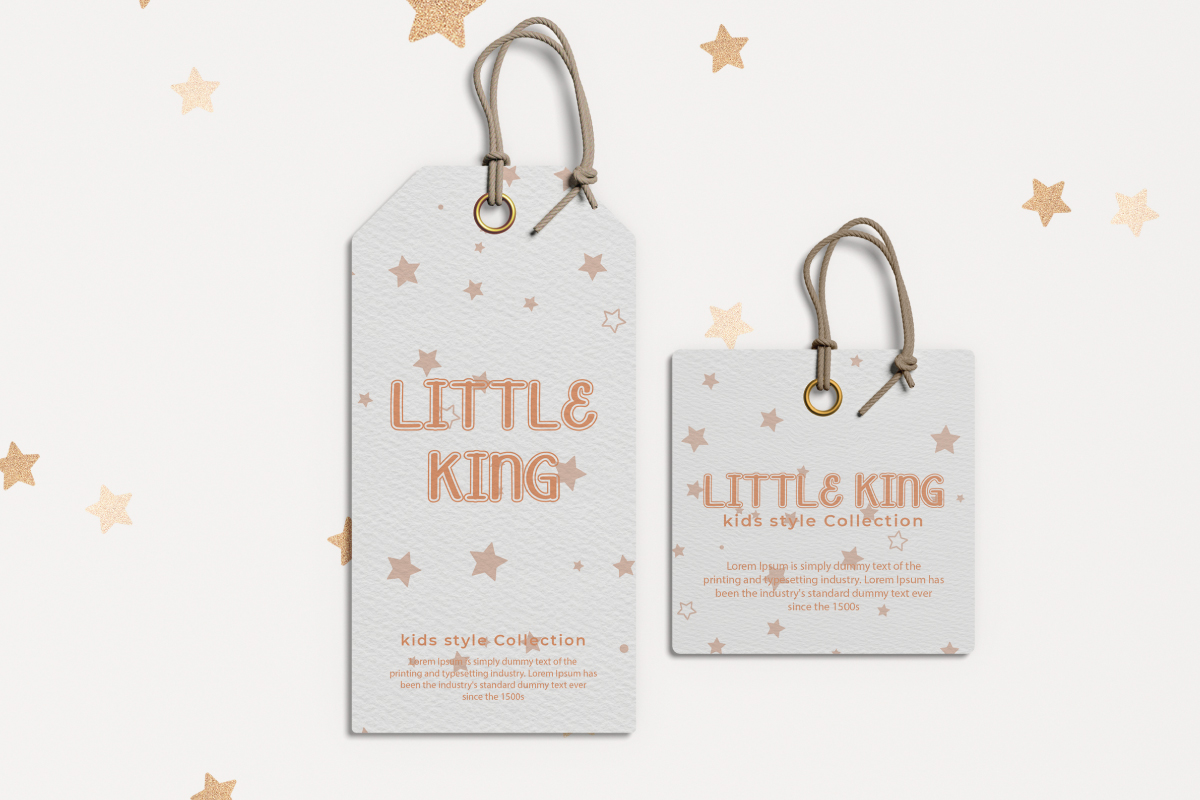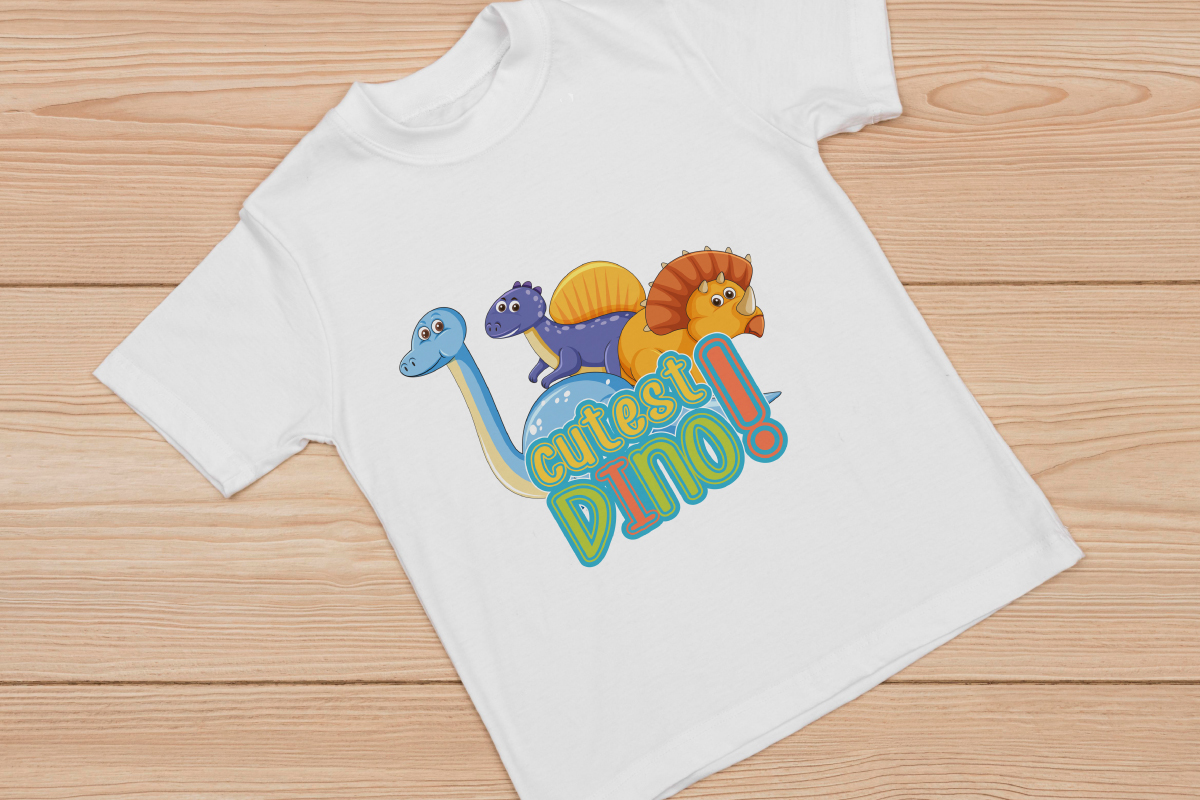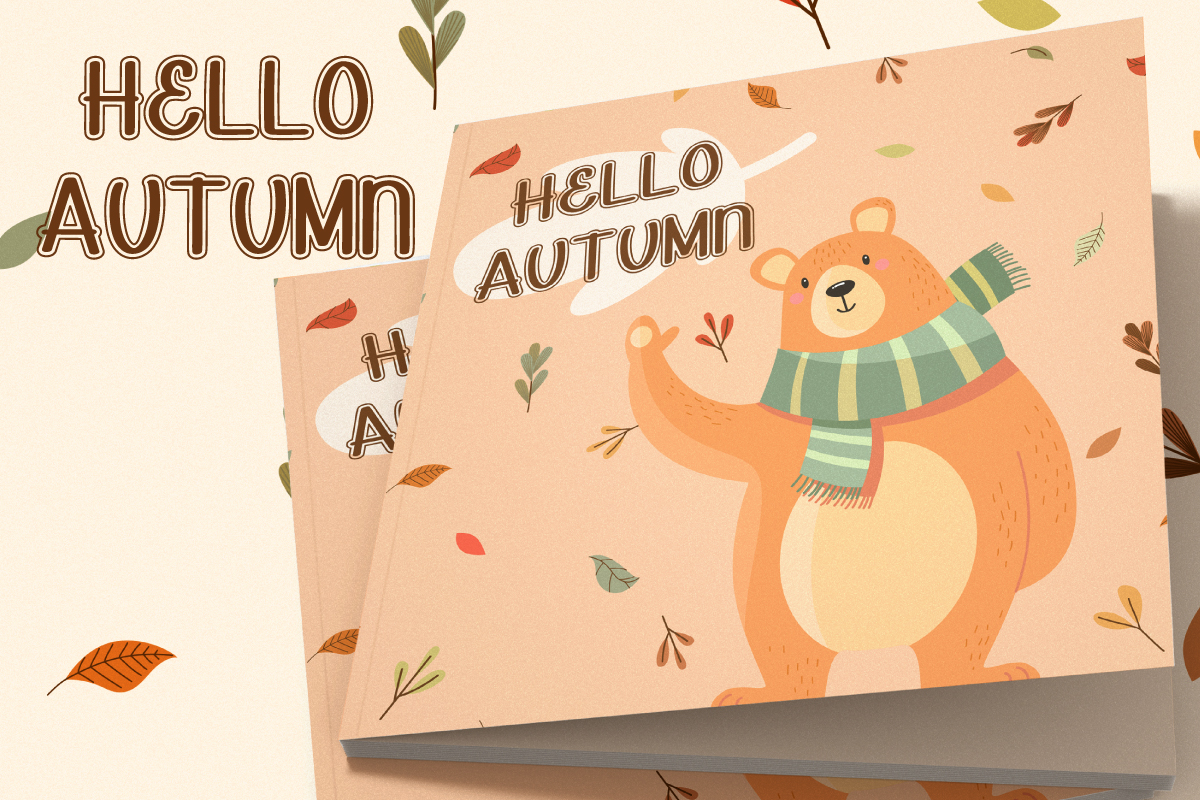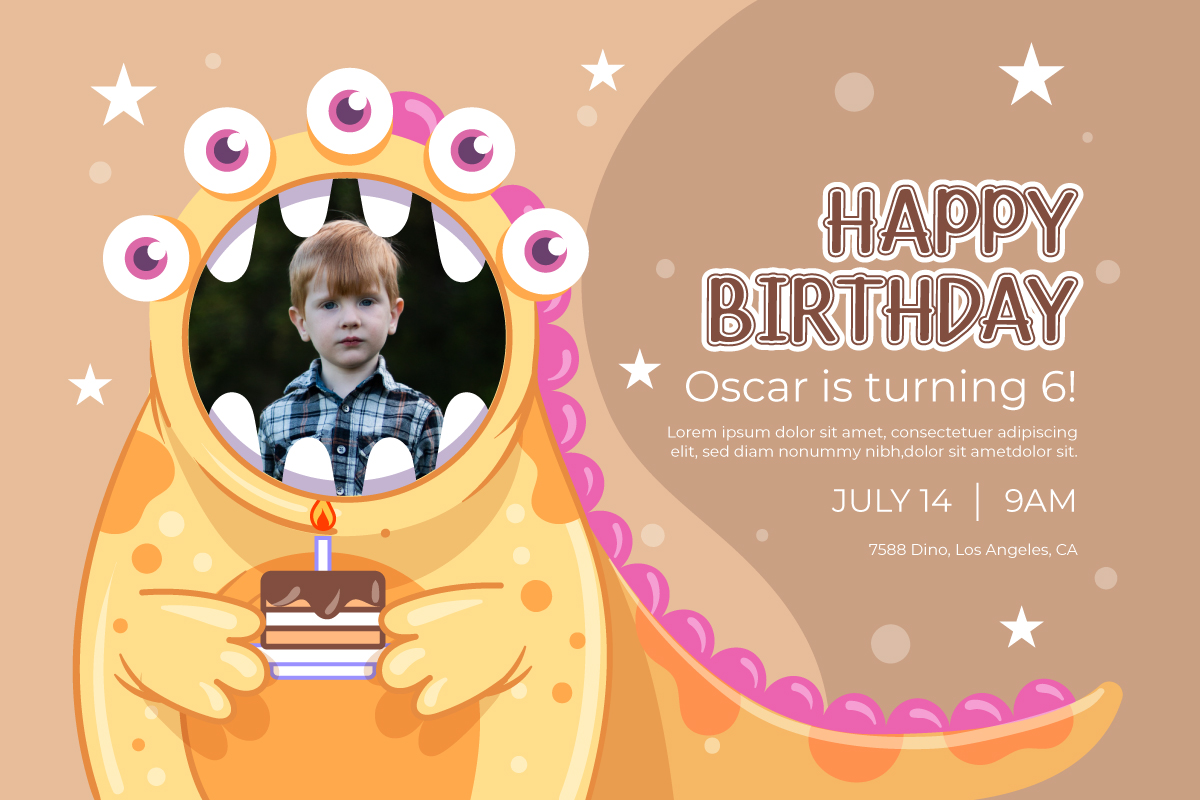
Happy Cartoon Font
Happy Cartoon Display Font
This is a fun comic sans serif font with outlined shapes. This font is crafted carefully whether you’re working on a comic, illustration, birthday invite or creating the next generation of superheroes, this font is the perfect font for you! Fresh and hip, while never taking itself too seriously. Retro and familiar, yet current and approachable. It’s like Comic Sans’ cooler younger brother without mainstream style. Characters carefully designed to work together in simple fun and instantly cool.
Happy Cartoon Font includes full set of Uppercase and Lowercase Basic Characters, Numerals and Punctuation. Also it contains ligatures to make it flowless characters to perfectly make awesome look that add more aesthetic fonts to perfect your extraordinary project. Happy Cartoon Font will be great for Use it for any project that needs a cheerful and playful look! Perfect for labels, quotes, posters, DIY projects, branding, packaging, greeting cards, websites, photography kids, window art, scrapbooking, tags and so much more!